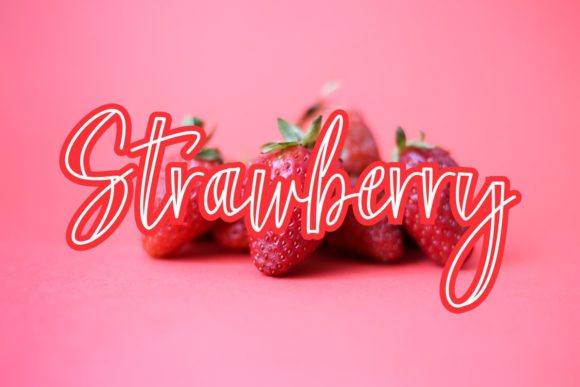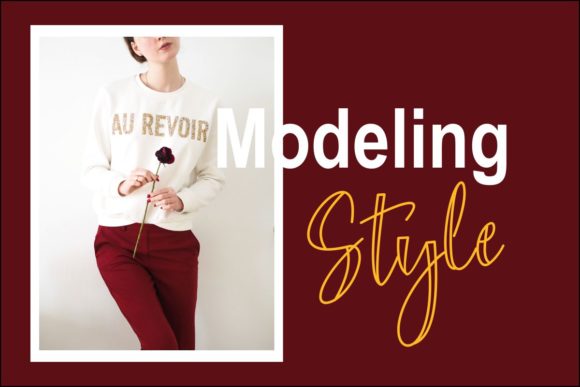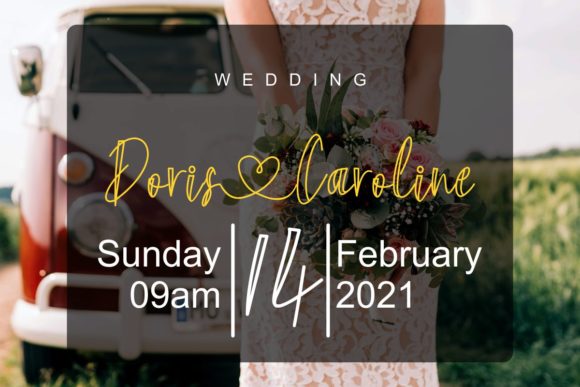
Hey Lovely Font
About Hey Lovely Font
Hey Lovely is a one-of-a-kind handwritten font that is sure to captivate your imagination. With its distinct and captivating style, this font is destined to become a favorite among designers and creatives alike. It has been carefully crafted to elevate your creative ideas to new heights and infuse them with a touch of uniqueness and charm.
The standout feature of Hey Lovely lies in its handcrafted and individualistic letterforms. Each character has been meticulously designed to exude personality and expressiveness, giving your designs a truly unique and artistic touch. The fluidity of the strokes and the balance of the curves make this font visually appealing and pleasing to the eye.
With Hey Lovely, the possibilities are endless. Its versatility allows it to be applied to a wide range of creative projects, including branding, logos, packaging, invitations, quotes, social media posts, and more. Whatever your creative endeavor may be, this font has the potential to bring it to life and make it stand out from the crowd.
When used in branding and logo design, Hey Lovely adds a distinctive and personal touch to your visual identity. Its uniqueness helps create a memorable brand presence that resonates with your audience. Whether you’re working on a boutique, beauty salon, or a creative agency, Hey Lovely can help communicate your brand’s character and create a lasting impression.
For invitations and event-related designs, Hey Lovely infuses a sense of elegance and charm. Whether it’s a wedding invitation, a birthday card, or a party flyer, this font brings a touch of individuality and sophistication to your stationery. Its handwritten nature adds a personal and heartfelt element to your messages, making your recipients feel special and valued.
Quotes and social media posts become more engaging and visually appealing with Hey Lovely. Its unique style helps draw attention and adds a whimsical and artistic flair to your inspirational messages and captions. Whether you’re sharing motivational quotes or showcasing your creative work, this font enhances the overall aesthetic and impact of your content.
In addition to its aesthetic appeal, Hey Lovely is designed with usability in mind. Its clear and legible letterforms ensure readability across various mediums and sizes. This makes it suitable for both print and digital applications, allowing you to effortlessly incorporate it into your design workflow.
In summary, Hey Lovely is an incredibly unique handwritten font that has the power to elevate your creative ideas to new heights. With its distinct style and masterful design, it brings a touch of individuality and charm to a wide range of projects. Embrace the beauty of Hey Lovely and watch as it transforms your designs into true works of art!